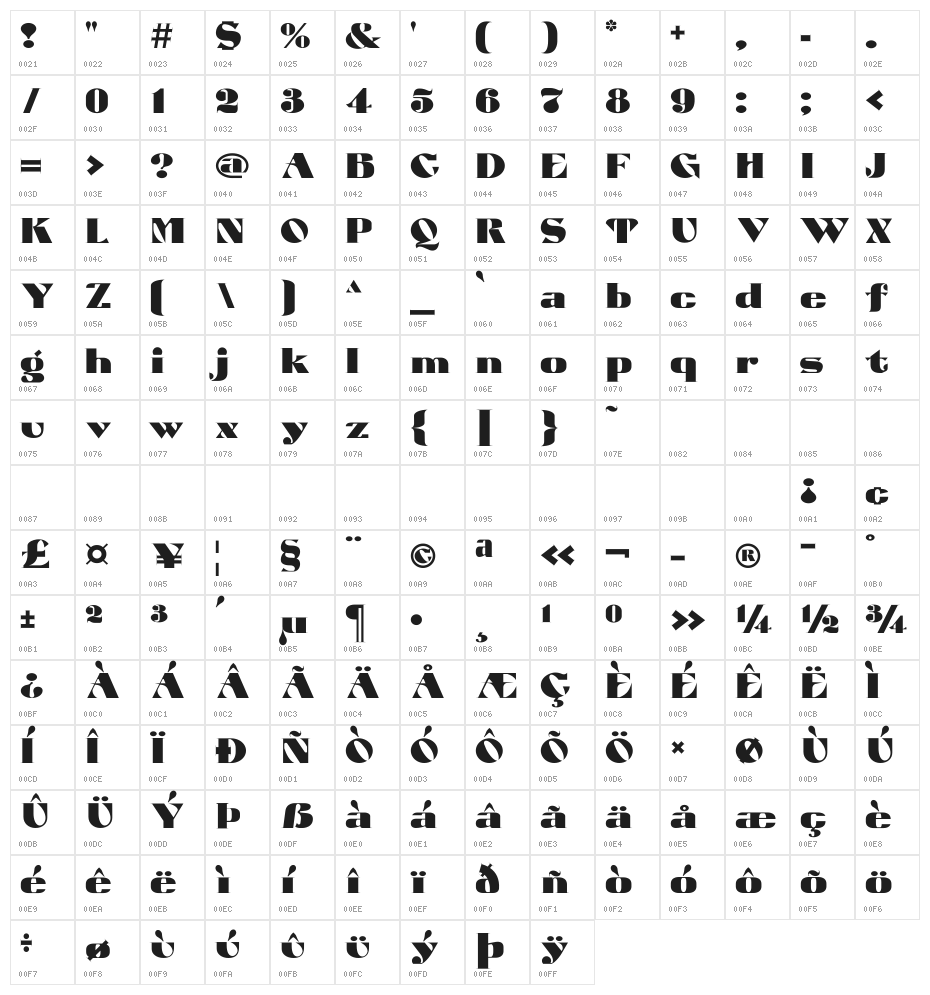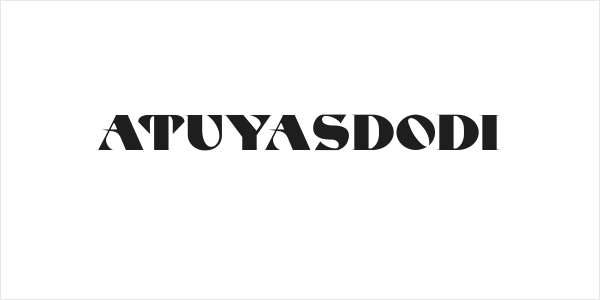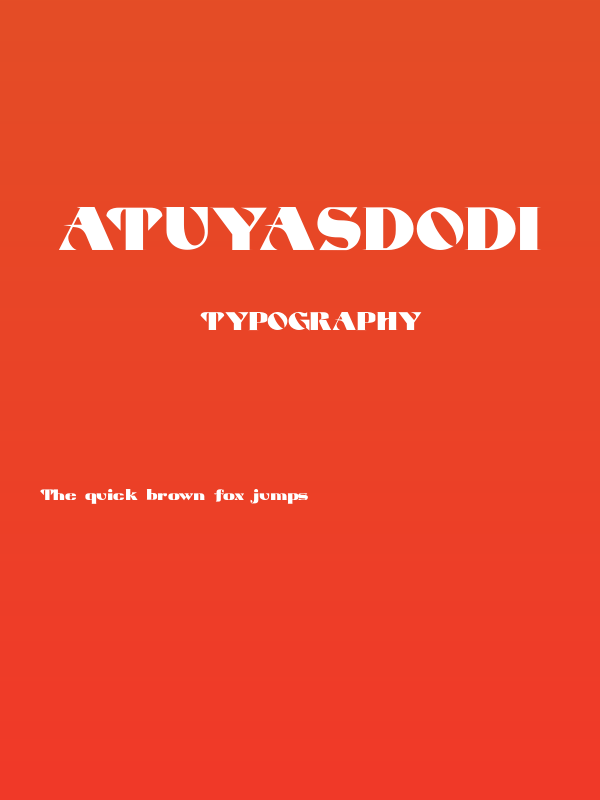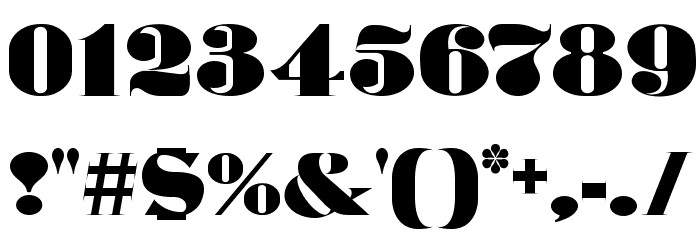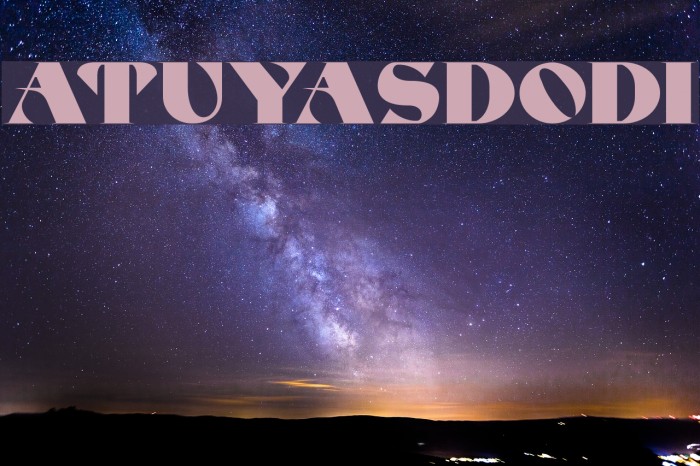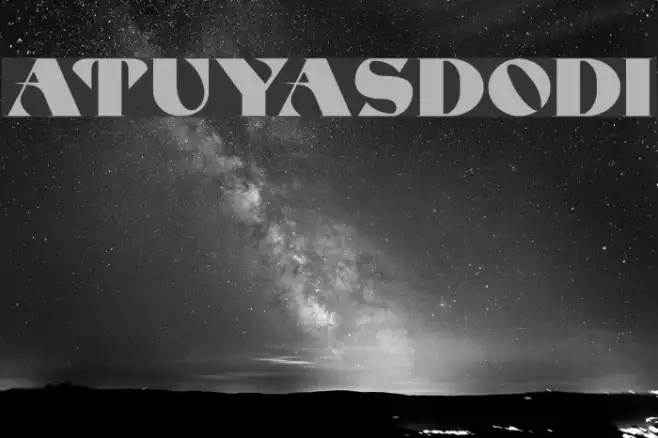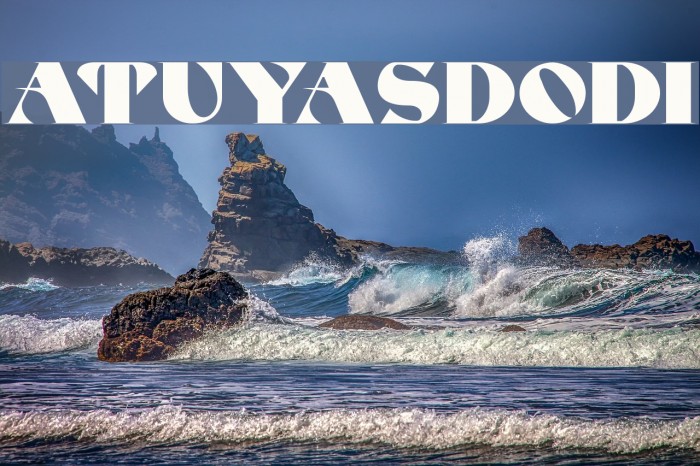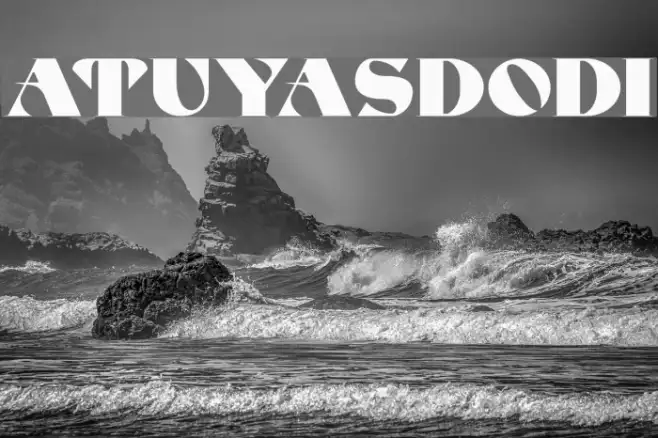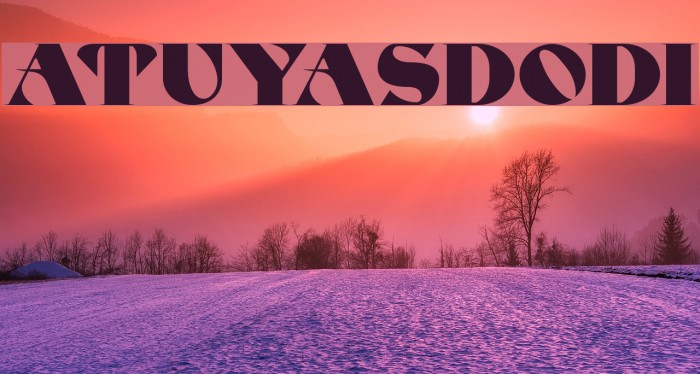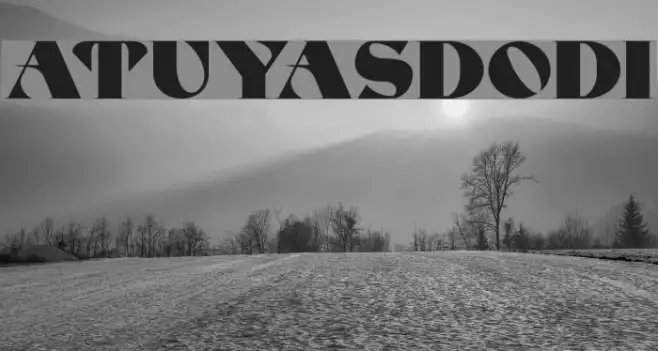
ATUYASDODI Font
ATUYASDODI Description
This font exhibits a bold and striking style, characterized by its thick, geometric shapes and high contrast between thick and thin strokes. The uppercase letters feature sharp angles and unique cutouts, giving them a modern and edgy appearance. The lowercase letters maintain a consistent weight, with rounded forms that contrast with the angular uppercase. Numbers are bold and easily legible, maintaining the same geometric style. Special characters are designed to match the overall aesthetic, ensuring cohesion across all glyphs. This font is ideal for making a strong visual impact.